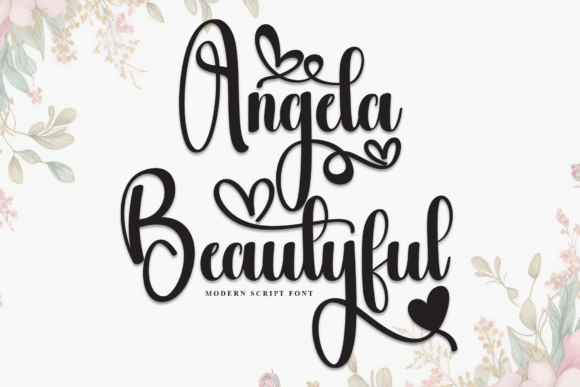
Discover the Charm of Angela Beautyful Font: Elevate Your Designs with Whimsy and Warmth
In the world of typography, few fonts manage to capture the essence of warmth, charm, and playfulness as effectively as Angela Beautyful Font. This handwritten display font is a treasure trove of sweetness and amiable allure, making it an indispensable tool for designers looking to infuse their creations with a touch of fun and whimsicality. Whether you’re crafting elegant wedding invitations, bespoke cards, or any design that craves a sprinkle of delight, Angela Beautyful Font is your perfect companion.
The Allure of Angela Beautyful Font
Angela Beautyful Font stands out in the digital typography landscape for its unique blend of cuteness and amusement. Its captivating design is not just visually appealing but also evokes a sense of warmth and friendliness, making it an excellent choice for projects that demand a personal touch. The font’s whimsical nature allows designers to break away from the conventional and explore a more playful and creative approach to typography.
Key Features of Angela Beautyful Font
- Handwritten Display Font: Angela Beautyful Font boasts a beautiful, handwritten style that adds a personal and intimate feel to any design.
- Whimsical and Playful: With its unique blend of cuteness and amusement, this font is perfect for designs that require a touch of whimsy.
- Versatile: Suitable for a wide range of projects, including wedding invitations, cards, posters, and more.
- Easy to Read: Despite its playful nature, Angela Beautyful Font remains clear and easy to read, making it functional as well as beautiful.
Applications of Angela Beautyful Font
The versatility of Angela Beautyful Font makes it an excellent choice for various design projects. Here are some of the most popular applications:
Wedding Invitations and Stationery
Angela Beautyful Font is perfect for wedding invitations, save-the-date cards, and other wedding stationery. Its elegant yet playful nature adds a romantic and personal touch to your wedding communications.
Bespoke Cards
Whether it’s a birthday, anniversary, or just because, bespoke cards created with Angela Beautyful Font are sure to leave a lasting impression. The font’s whimsical charm makes every card feel special and heartfelt.
Digital and Print Posters
For posters that need to stand out, Angela Beautyful Font can add a creative and eye-catching element. Its playful style is perfect for promoting events, products, or services in a fun and engaging way.
Tips for Using Angela Beautyful Font Effectively
To get the most out of Angela Beautyful Font, consider the following tips:
- Mix and Match: Don’t be afraid to experiment by pairing Angela Beautyful Font with other fonts to create a unique and visually appealing design.
- Play with Sizes: Utilize different font sizes to add emphasis and create a hierarchy of information in your design.
- Color Matters: Choose colors that complement the warmth and charm of Angela Beautyful Font. Pastels, soft neutrals, and vibrant hues can work beautifully.
Angela Beautyful Font is more than just a typographic tool; it’s a gateway to creating designs that are distinctly delightful and engaging. Its unique blend of whimsy, warmth, and charm makes it an invaluable asset for designers looking to add a personal touch to their creations. Whether you’re working on wedding invitations, bespoke cards, or any design project that could use a sprinkle of fun, Angela Beautyful Font is sure to exceed your expectations.
So, why settle for ordinary when you can make your designs distinctly delightful with Angela Beautyful Font? Dive into the world of whimsical typography and discover how this friendly font can elevate your creations to new heights of charm and appeal.